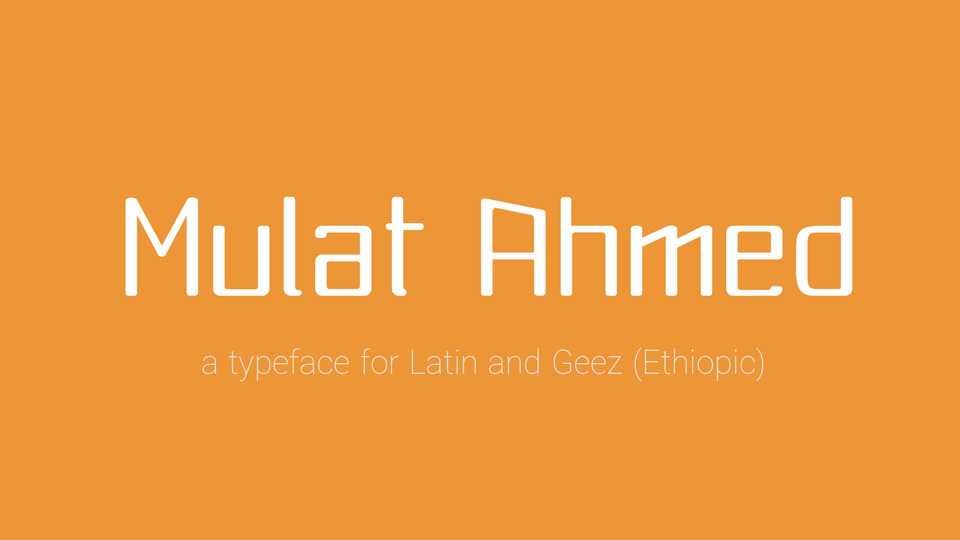
Download Mulat Ahmed font, a display typeface that supports all languages that use the Latin script and Geez scripts. Mulat Ahmed typeface suggested for web and print media.